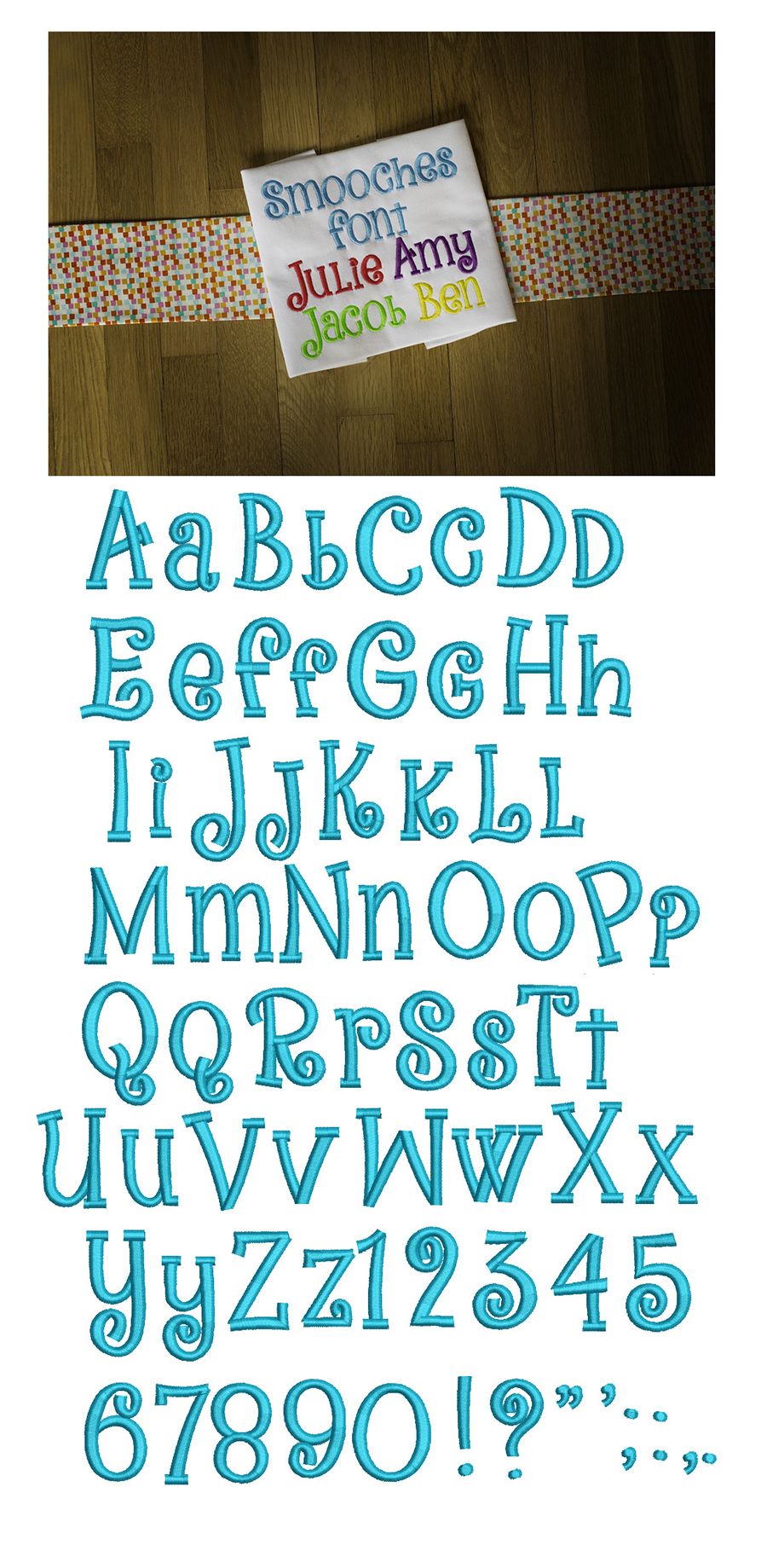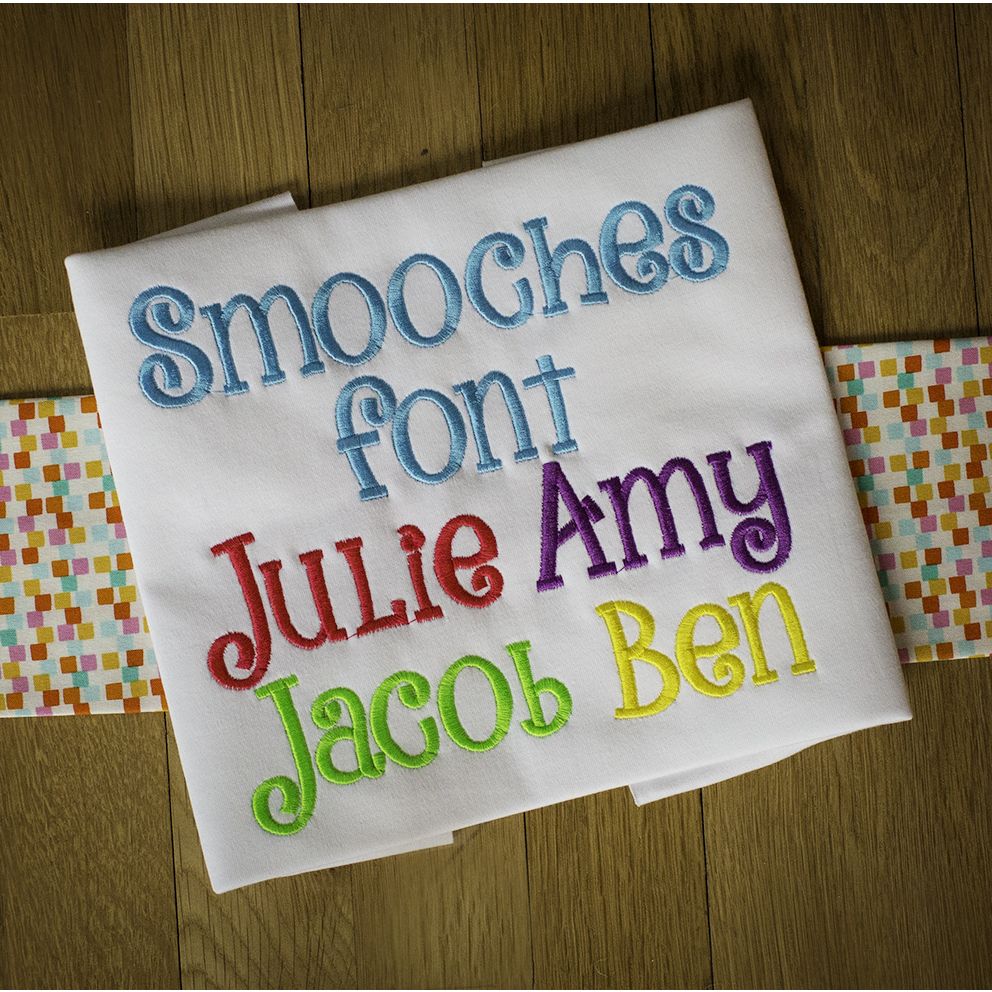
Smooches Satin Stitch Embroidery Font
A cute, chunky font with curls.  All of our font alphabets are 100% manually digitized to bring you maximum stitch quality.